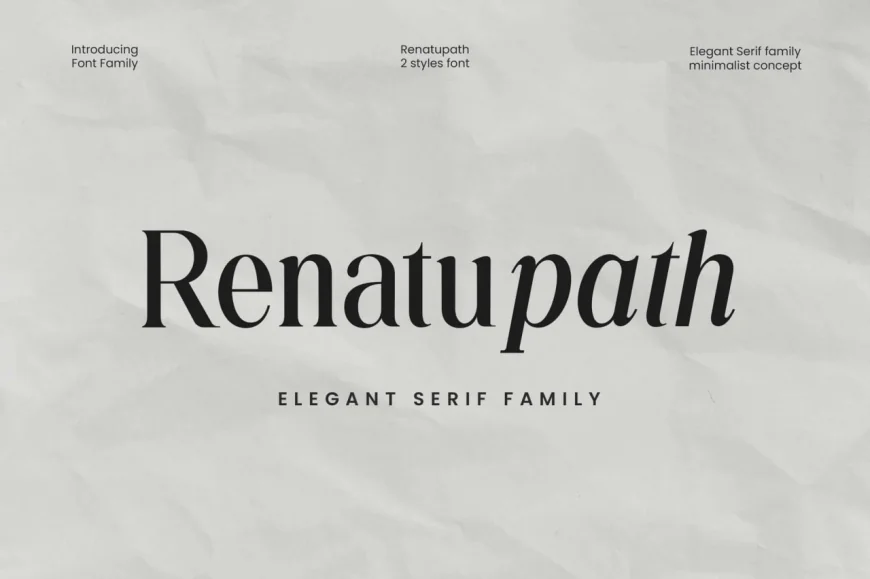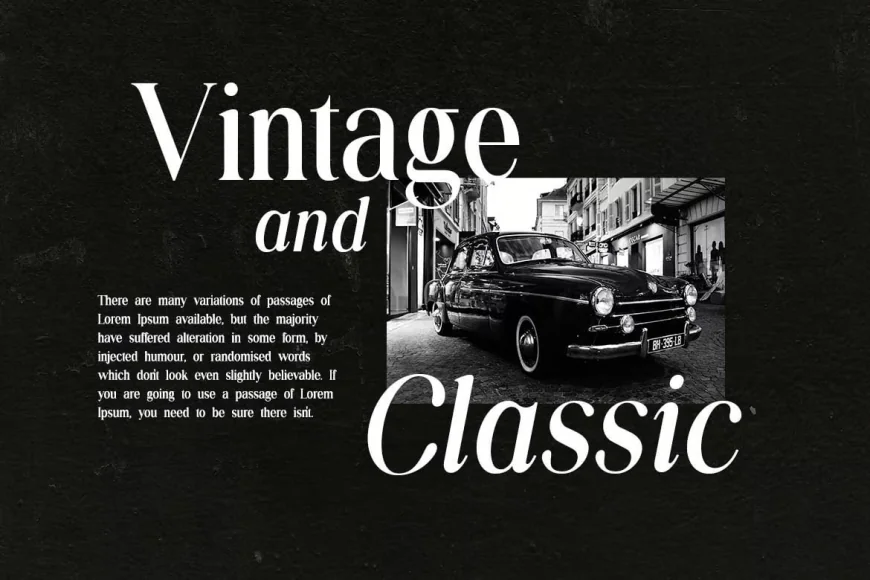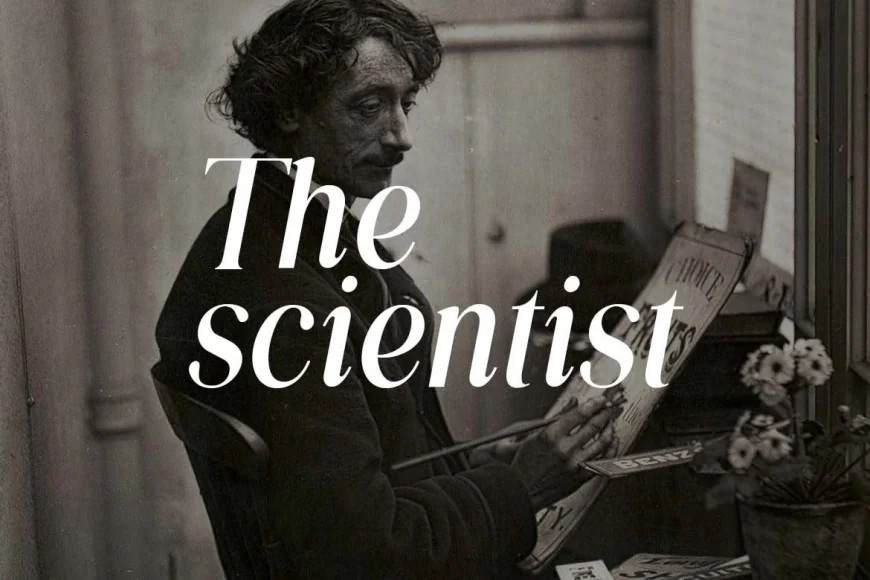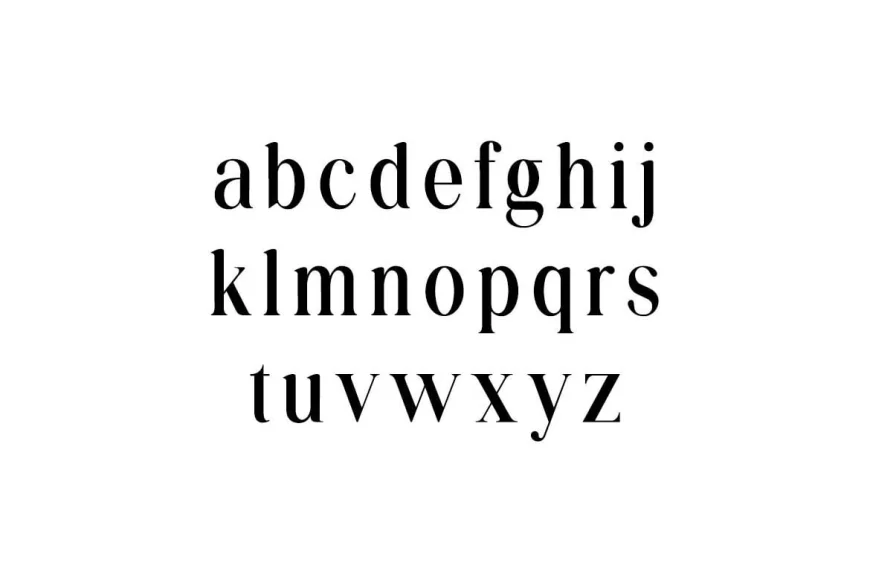
Ranatupath Elegant Serif Font Family
Sophisticated and stylish typeface featuring classic serif details with a modern touch.
Ranatupath Elegant Serif Font Family sophisticated and stylish typeface featuring classic serif details with a modern touch. Perfect for branding, editorial design, invitations, and luxury-themed projects, offering versatility with multiple weights and ligatures. Elegant serif font, Ranatupath font, serif typeface family, luxury serif font, modern classic font, high-end typography, stylish serif typeface.